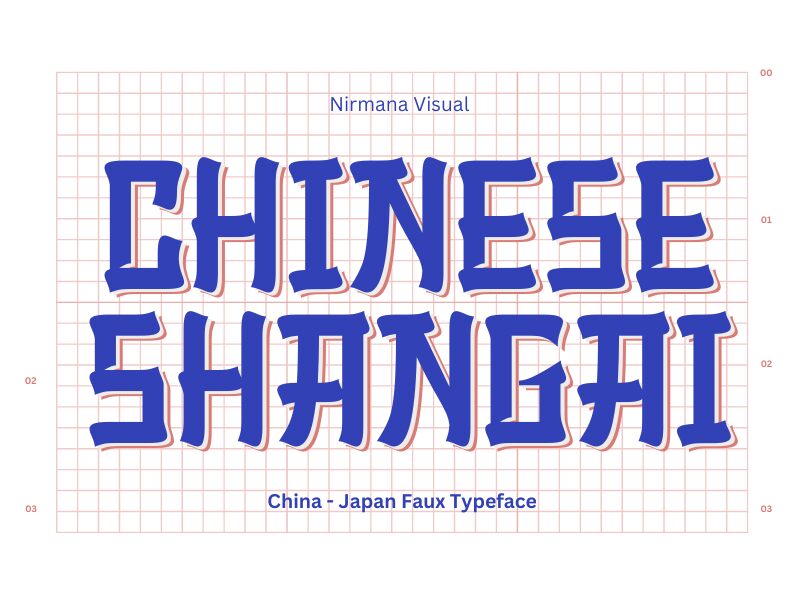
Chinese Shangai font family is a free font family created by Nirmana Visual in an eye-catching foreign style. The font's geometric influences and dramatic flair are instantly notable, with an Asian-inspired aesthetic boosting its culturally evocative aura. It has a bold presence and historical flair which adds to its decorative aspect and makes it unique. This font family, made out of 2 styles, is best described as ornate and themed as it was inspired by a particular culture.
This font family can be suitable on posters and book covers, brochures and labels, packaging boxes, fashion magazines, invitations, film covers, or even stickers. Any other related print design project will look better when integrating this typeface on its pages. It can also be considered for use in web design.